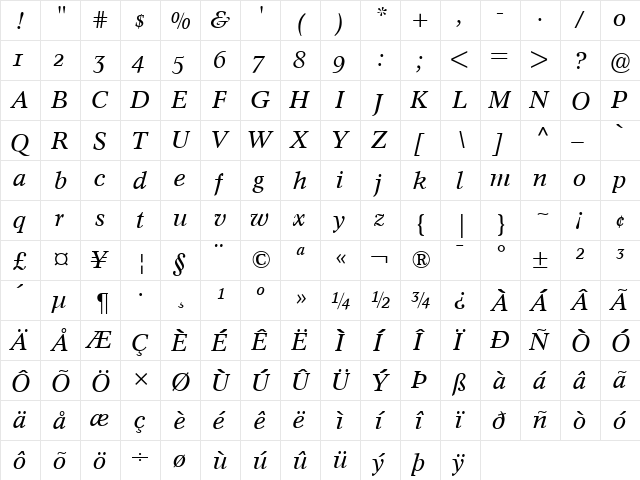
Concorde BE Italic
Design Context for Concorde BE Typeface
Concorde BE is a composed and adaptable typeface that performs quietly and consistently across a wide range of design contexts. The slanted form adds forward momentum and visual energy.
Pro Tip: Try Concorde BE for annotation and caption copy alongside an upright companion — the contrast in angle creates a dynamic but ordered typographic system.